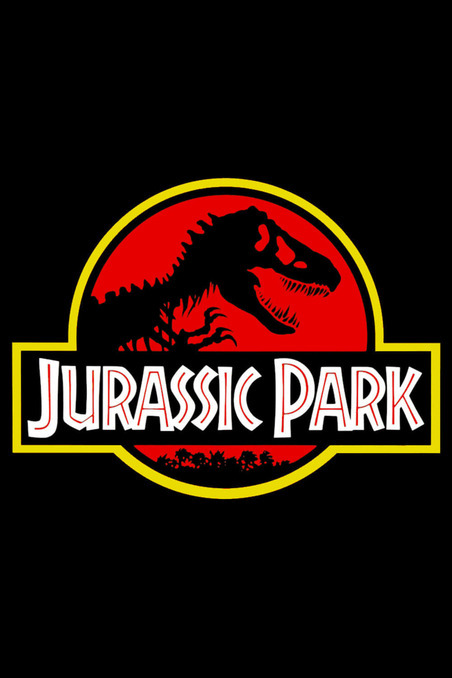
Jurassic Park Font
Jurassic Park is science fiction film directed by Steven Spielberg in 1993. The film Show a group of scientists who are invited to a remote island where they are created a theme park with featuring of genetically devolped dinosaurs. The font is available in all caps, licenced as free for personal use and is free to download. Click the above link to download Jurassic Park font.